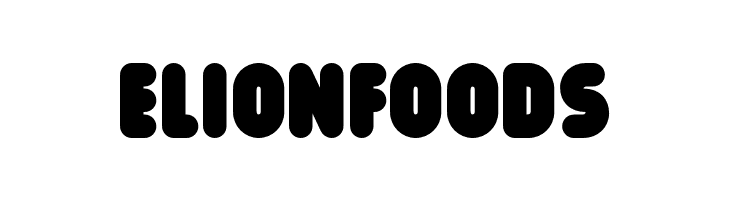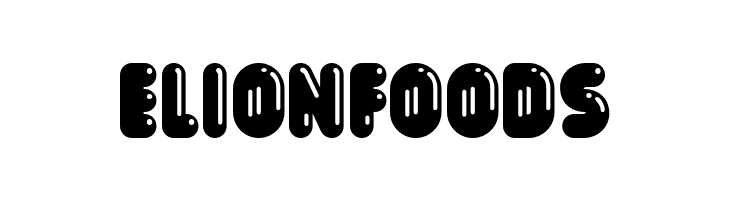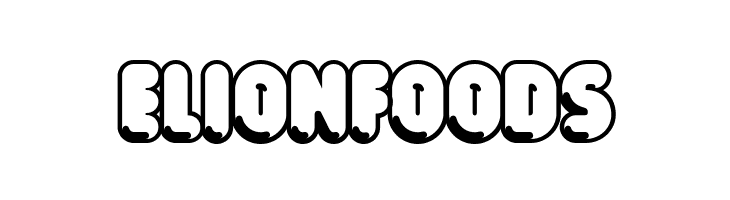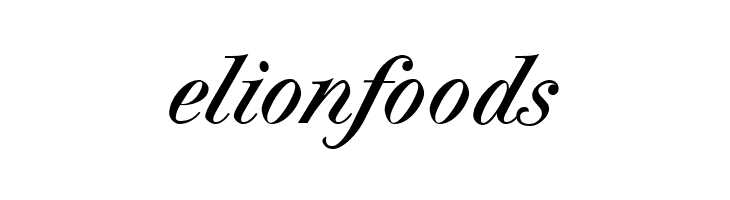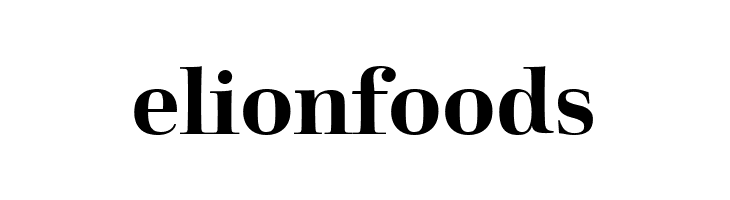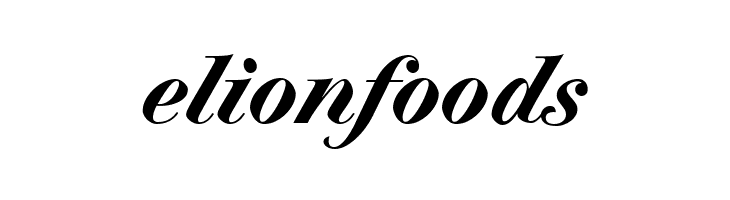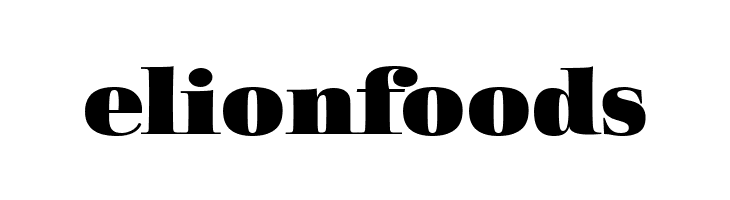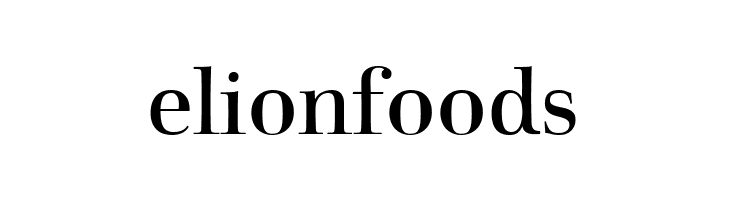
A clean, minimalist font with a modern and professional design.
A bold, rounded font with a playful and friendly style.
A bold, playful font with bubble-like design and circular accents.
A bold, playful font with rounded contours and a 3D effect.
An elegant italic font with classic calligraphic influences.
A classic serif font with elegant, bold characters and modern touches.
A classic, semi-bold italic serif font with medium contrast and elegant style.
A bold, high-contrast serif font with sharp serifs and a commanding presence.
A classic serif font with elegant strokes and balanced proportions.
A modern, thin, rounded font with a clean and minimalist design.